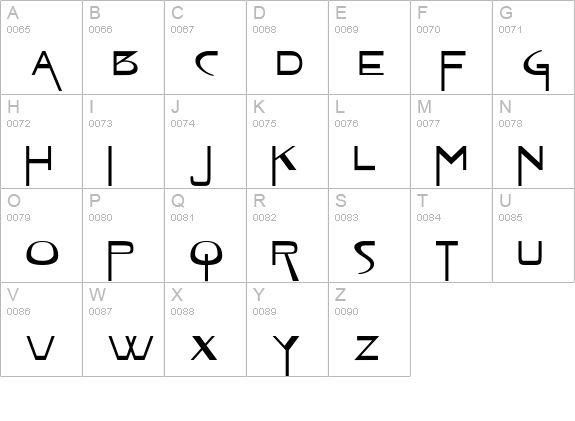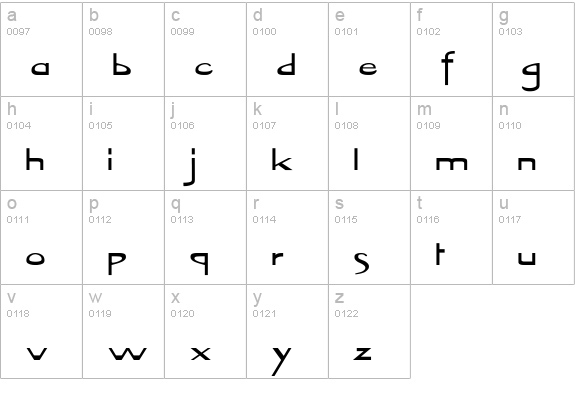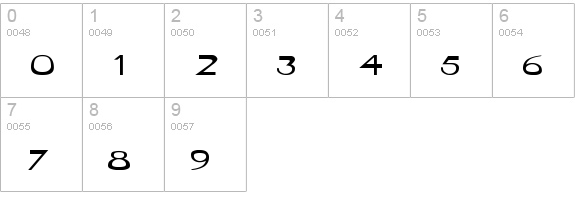
VireoFont Ex Font Details
VireoFont Ex is a beautifully crafted font that embodies elegance and sophistication. With its clean lines and graceful curves, this font is perfect for any project that requires a touch of refinement. Whether you're designing a logo, creating a stunning website, or crafting an eye-catching poster, VireoFont Ex will elevate your work to new heights. What sets VireoFont Ex apart is not just its stunning design, but also the fact that it is available for free. That's right, this incredible font can be freely downloaded at FontsMarket.com. We believe that great design should be accessible to all, and that's why we are proud to offer VireoFont Ex as a free resource for designers, creatives, and enthusiasts alike. Imagine the possibilities that come with having this incredible font at your fingertips. From luxurious branding to striking headlines, VireoFont Ex will effortlessly elevate your designs, making them stand out from the crowd. Its versatility allows it to be used in a variety of contexts, from print to digital, ensuring that your message is always conveyed with style and sophistication. Don't miss out on the opportunity to enhance your creative projects with VireoFont Ex. Download this amazing font for free at FontsMarket.com and unlock a world of endless design possibilities. Whether you're a professional designer or a passionate hobbyist, VireoFont Ex is the perfect addition to your font collection. Experience the beauty and elegance of this font today and let your creativity soar to new heights.